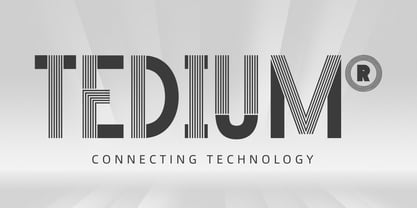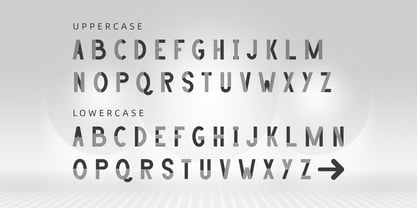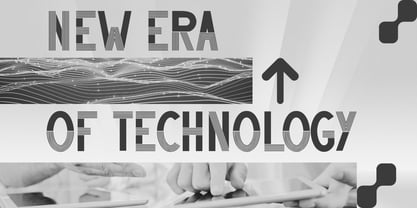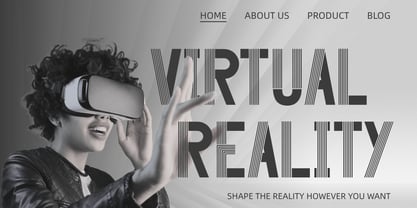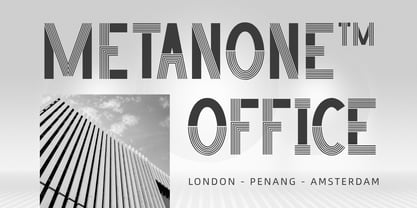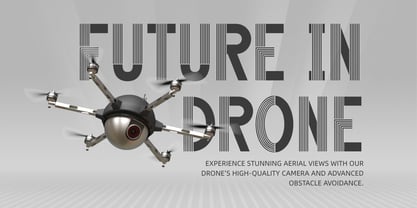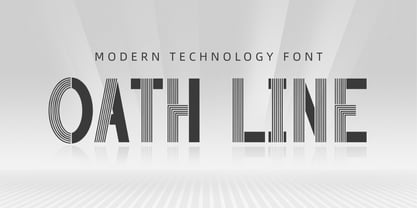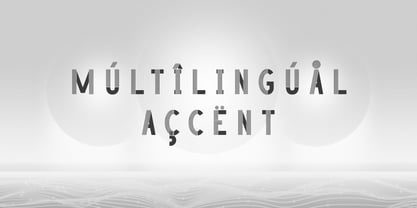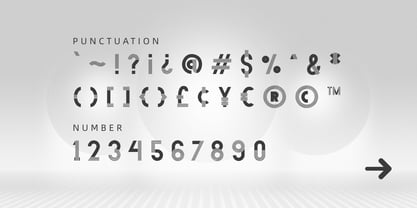
Oath Line
by Attype Studio
The Oath Line Font Family was designed by Fadli Ramadhan Iskandar and published by Attype Studio. Oath Line contains 1 styles. More about this family
Oath Line – Modern Technology Font is a futuristic display font designed to stand out with its dynamic combination of bold solid lines and sleek linear details.
Perfectly crafted for high-impact designs, this font brings a modern tech aesthetic ideal for digital interfaces, innovation campaigns, and science-themed projects.
Oath Line delivers a bold, futuristic presence that communicates precision and progress. It includes full uppercase and lowercase characters, making it versatile for various creative needs.
Tech startup branding, Futuristic posters and headlines, Drone or AI product packaging, UI/UX design mockup, Digital agency presentations, Modern architectural visuals, Sci-fi or innovation-themed marketing.
- Multilingual, US Roman, Latin 1 Support
Designers: Fadli Ramadhan Iskandar
Foundry: Attype Studio
Attype Studio is a vibrant and innovative type foundry founded in 2018 by Fadli, a dedicated type designer from Indonesia. Our mission is to create unique and engaging display fonts that elevate brands and projects. Specializing in lettering and brush script calligraphy, we pride ourselves on designing layered display fonts that are dynamic and full of personality.Located in Indonesia, Attype Studio focuses on crafting fonts that bring brands to life, ensuring they stand out with a touch of elegance and creativity. Our fonts are perfect for branding, providing a fresh and lively feel that captures attention. We aim to make each font not only functional but also an artistic expression that adds character to any project.Our dedication to quality and creativity has made our fonts popular among various businesses and designers worldwide. For more information about our work and to explore our font collections, visit our website or follow us on social media. Discover how Attype Studio can transform your brand with our unique and captivating fonts.